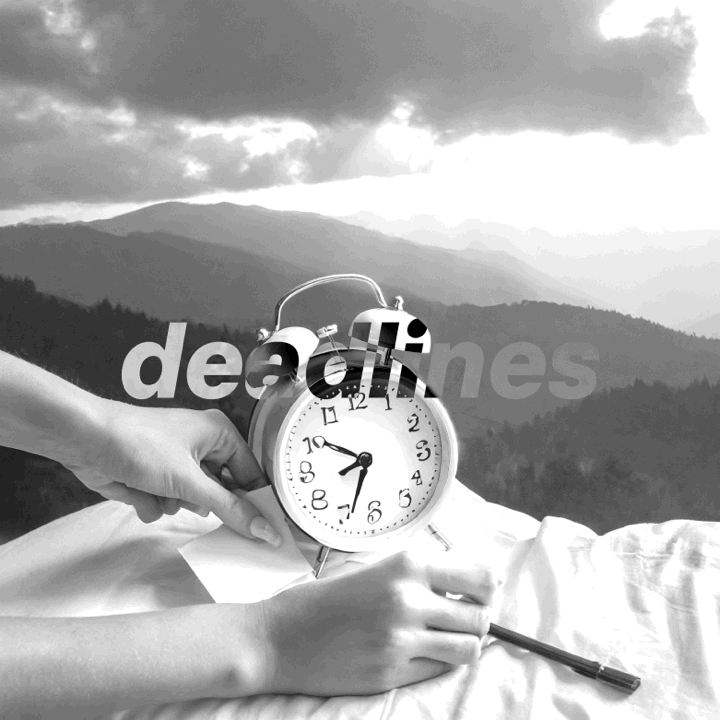
BC Novatica TXT
Novatica TXT is a new extension of the original BC Novatica family. It is designed for typesetting longer texts and provides a comfortable and easy-to-read experience. Novatica TXT has a slightly condensed width and adjusted spacing & metrics, making reading more efficient on screens and paper. Slightly increased x-height makes it faster and easier to distinguish the letters. Novatica TXT is available in all ten weights from Light to Bold, including Italics. In 2023, the entire Novatica family has been updated with a few minor changes. One of the biggest is the improvement of Cyrillic and the new export to Variable format, which allows users to smoothly adjust the weight and width of the typeface, making it even more versatile.
Type design Latin: Tomáš Brousil and Radek Sidun
Type design Cyrillic: Ilya Bazhanov